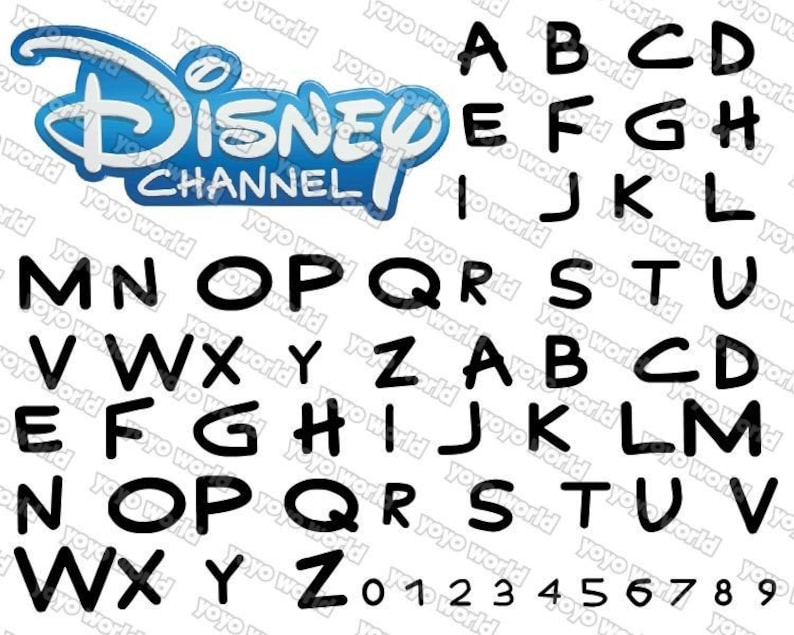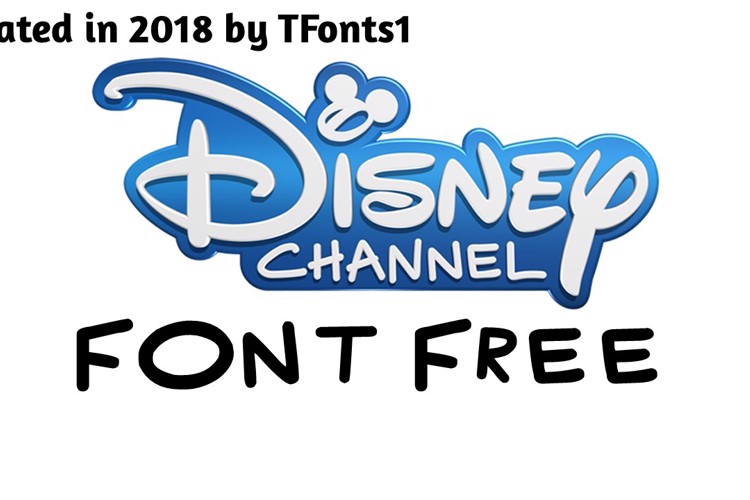
Disney Channel Font
Disney Channel Font - Please use the pulldown menu to view different character maps contained in this font. Click to find the best 2 free fonts in the disney channel style. Every font is free to download! Download and install the disney channel font for free from ffonts.net. Disney channel is a playful and whimsical typeface inspired by the iconic tv network. Looking for disney channel fonts? It offers various weights and styles for personal. Unicodeunicode 2.0 and onwards semantics,. ️ this font has been downloaded 2,000+ times.
️ this font has been downloaded 2,000+ times. Unicodeunicode 2.0 and onwards semantics,. Download and install the disney channel font for free from ffonts.net. Please use the pulldown menu to view different character maps contained in this font. Disney channel is a playful and whimsical typeface inspired by the iconic tv network. Looking for disney channel fonts? It offers various weights and styles for personal. Every font is free to download! Click to find the best 2 free fonts in the disney channel style.
Download and install the disney channel font for free from ffonts.net. Every font is free to download! Looking for disney channel fonts? ️ this font has been downloaded 2,000+ times. Please use the pulldown menu to view different character maps contained in this font. Unicodeunicode 2.0 and onwards semantics,. Disney channel is a playful and whimsical typeface inspired by the iconic tv network. It offers various weights and styles for personal. Click to find the best 2 free fonts in the disney channel style.
Every font is free to download! Click to find the best 2 free fonts in the disney channel style. ️ this font has been downloaded 2,000+ times. Disney channel is a playful and whimsical typeface inspired by the iconic tv network. Looking for disney channel fonts?
Download and install the disney channel font for free from ffonts.net. Disney channel is a playful and whimsical typeface inspired by the iconic tv network. Every font is free to download! It offers various weights and styles for personal. Unicodeunicode 2.0 and onwards semantics,.
Disney channel is a playful and whimsical typeface inspired by the iconic tv network. Every font is free to download! Download and install the disney channel font for free from ffonts.net. ️ this font has been downloaded 2,000+ times. Click to find the best 2 free fonts in the disney channel style.
Every font is free to download! Unicodeunicode 2.0 and onwards semantics,. Please use the pulldown menu to view different character maps contained in this font. Looking for disney channel fonts? Disney channel is a playful and whimsical typeface inspired by the iconic tv network.
Click to find the best 2 free fonts in the disney channel style. ️ this font has been downloaded 2,000+ times. Unicodeunicode 2.0 and onwards semantics,. Download and install the disney channel font for free from ffonts.net. Looking for disney channel fonts?
It offers various weights and styles for personal. Click to find the best 2 free fonts in the disney channel style. Download and install the disney channel font for free from ffonts.net. Every font is free to download! Unicodeunicode 2.0 and onwards semantics,.
Download and install the disney channel font for free from ffonts.net. Disney channel is a playful and whimsical typeface inspired by the iconic tv network. Looking for disney channel fonts? Click to find the best 2 free fonts in the disney channel style.